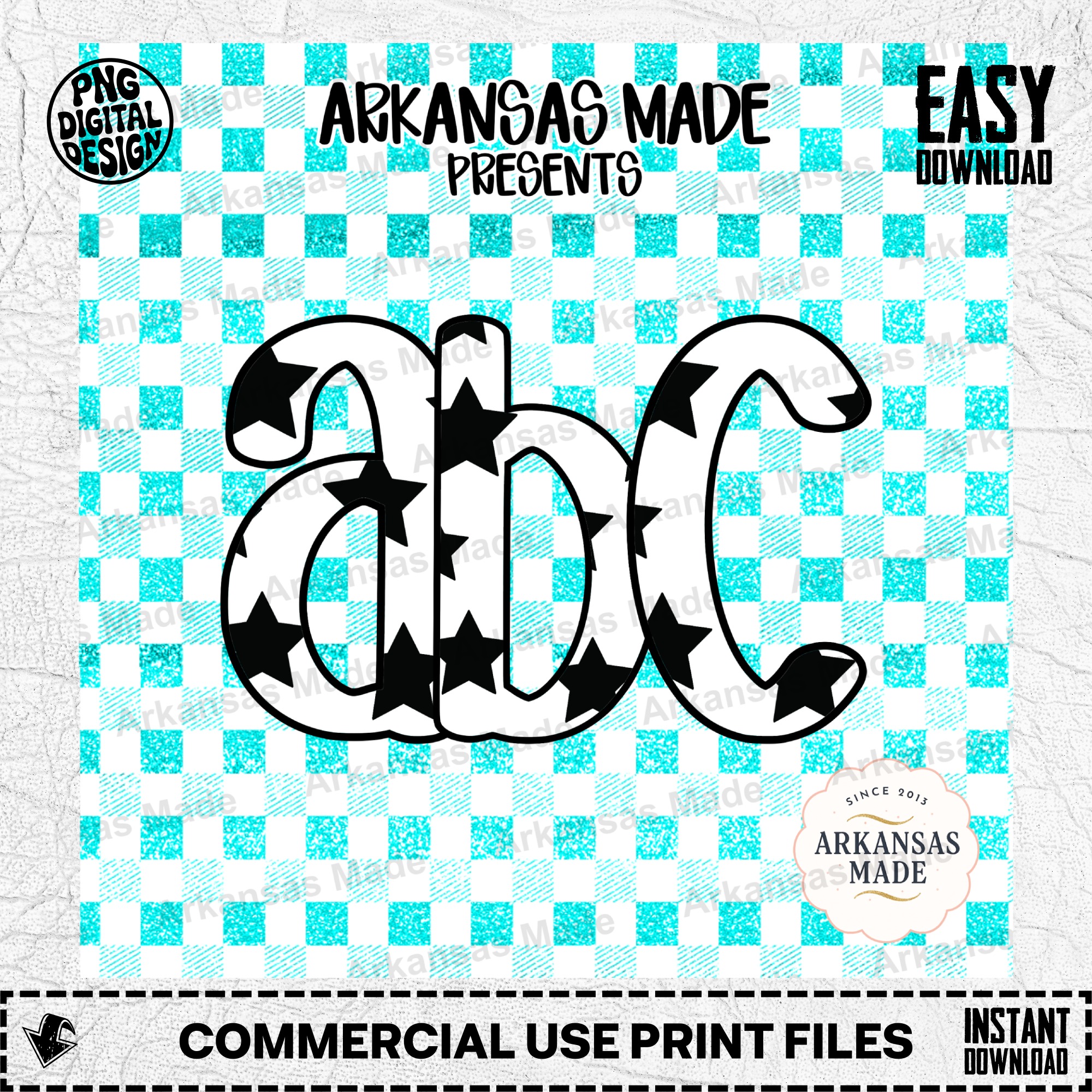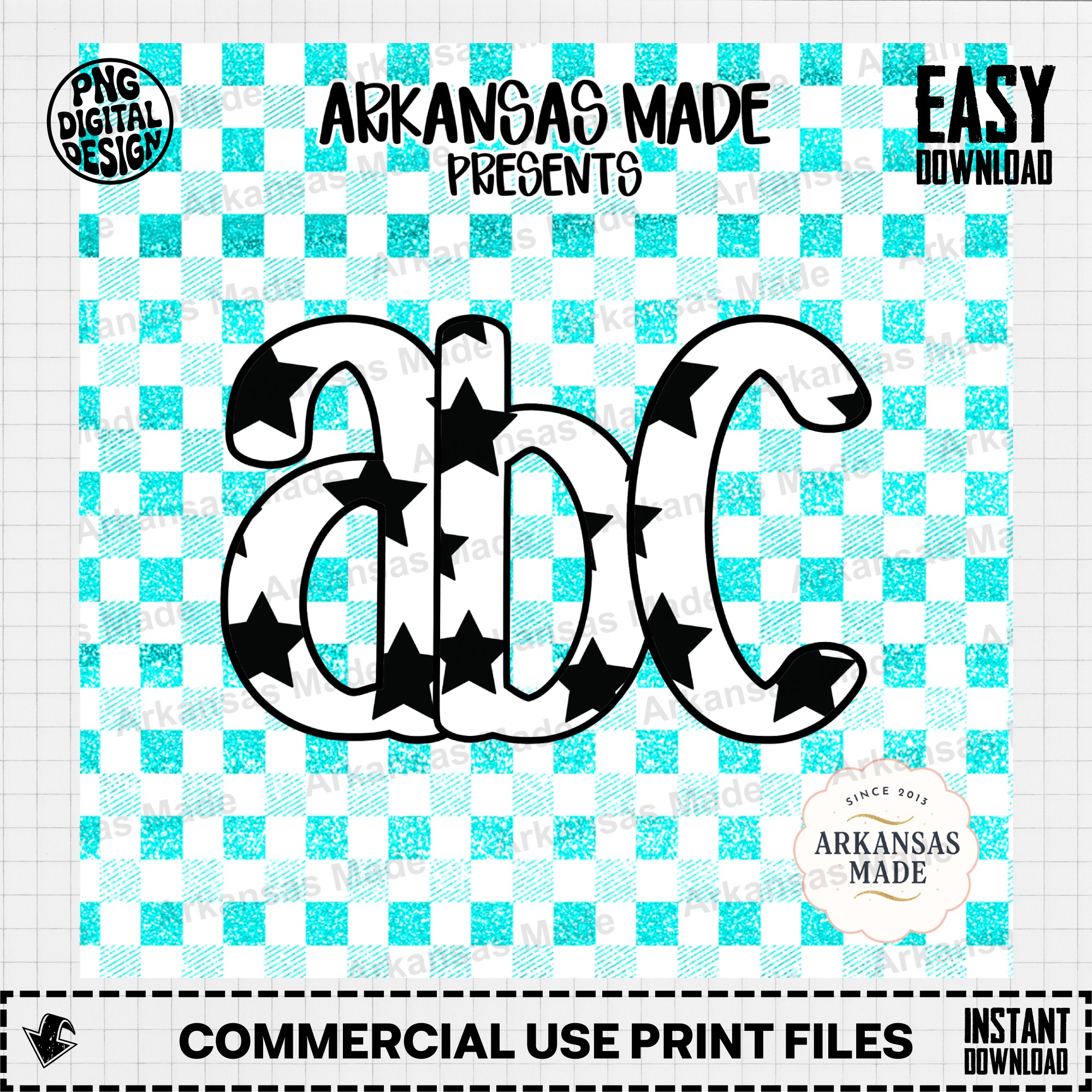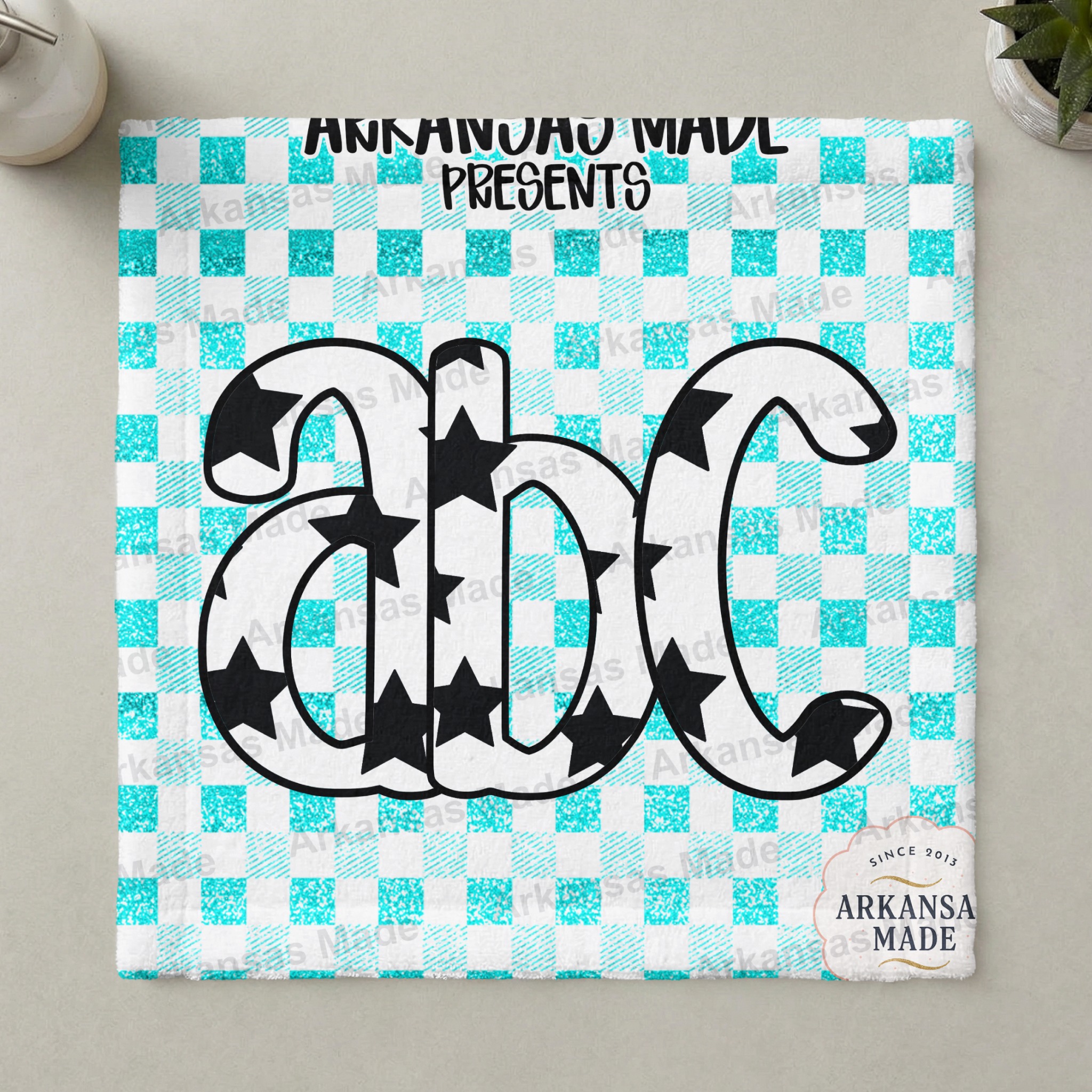
Unlock endless creative possibilities with this enchanting Stars ABC Digital Alpha Set, perfect for adding a sparkling touch to your projects. Featuring charming black stars nestled within bold letters and a delightful faux teal glitter gingham pattern, this set is ideal for crafters and designers alike.
This versatile digital download is designed for anyone creating personalized gifts, unique nursery decor, school-themed items, or eye-catching sublimation designs. It brings a playful, cheerful, and subtly patriotic vibe that appeals to teachers, parents, and DIY enthusiasts looking to infuse their creations with a touch of whimsy and southern charm. Celebrate special moments or elevate everyday crafts with this standout alphabet collection.